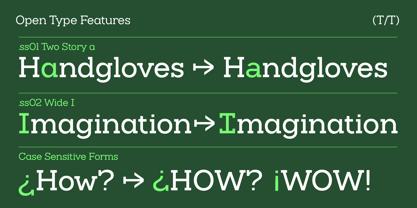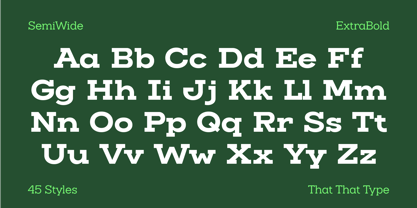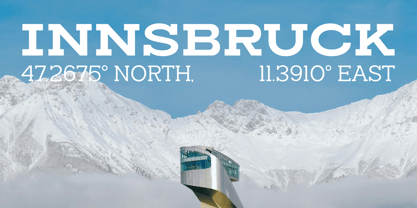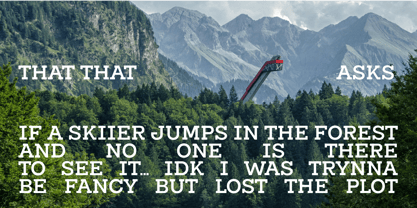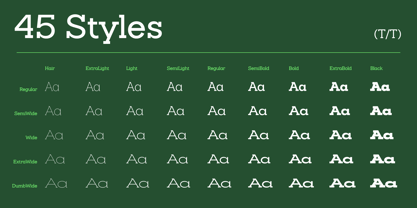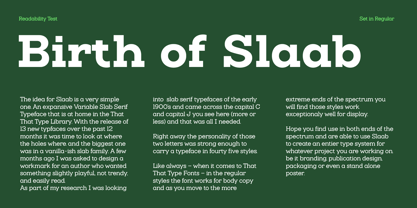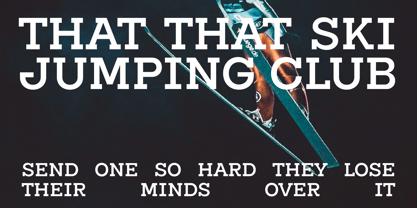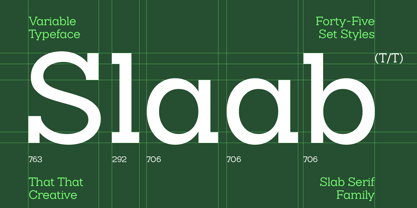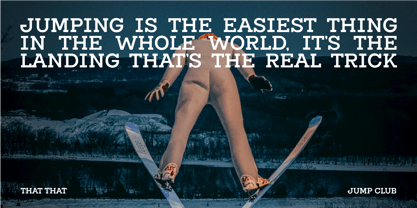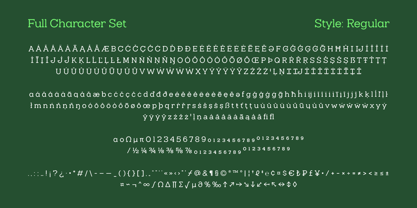
The Slaab Font Family was designed by Harbor Bickmore and published by That That Creative. Slaab contains 45 styles and family package options.
The idea for Slaab is a very simple one. An expansive Slab Serif Typeface that is at home in the That That Type Library.
As part of my research I was looking into slab serif typefaces of the early 1900’s and came across the capital C and capital J you see here (more or less) and that was all I needed.
Right away the personality of those two letters was strong enough to carry a typeface in fourty five styles.
Like always – when it comes to That That Type Fonts – in the regular styles the font works for body copy and as you move to the more extreme ends of the spectrum you will find those styles work exceptionally well for display.
Hope you find use in both ends of the spectrum and are able to use Slaab to create an entire type system for whatever project you are working on. be it branding, publication design, packaging or even a stand alone poster.